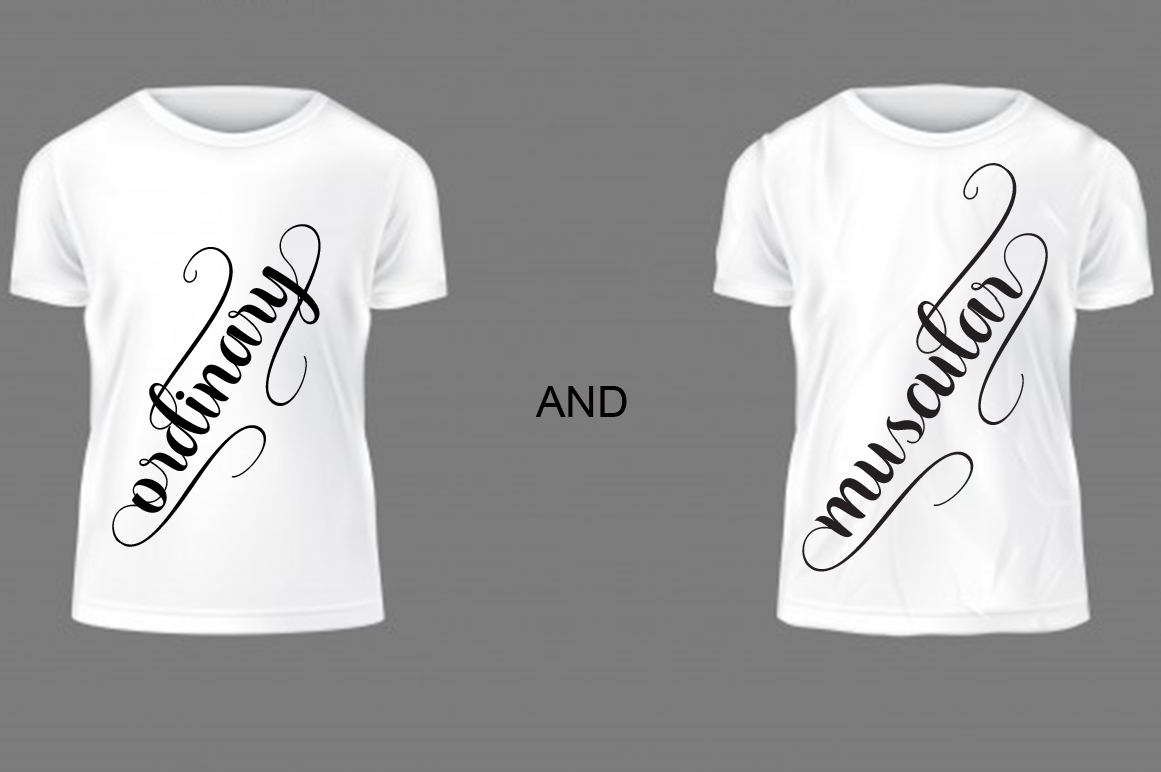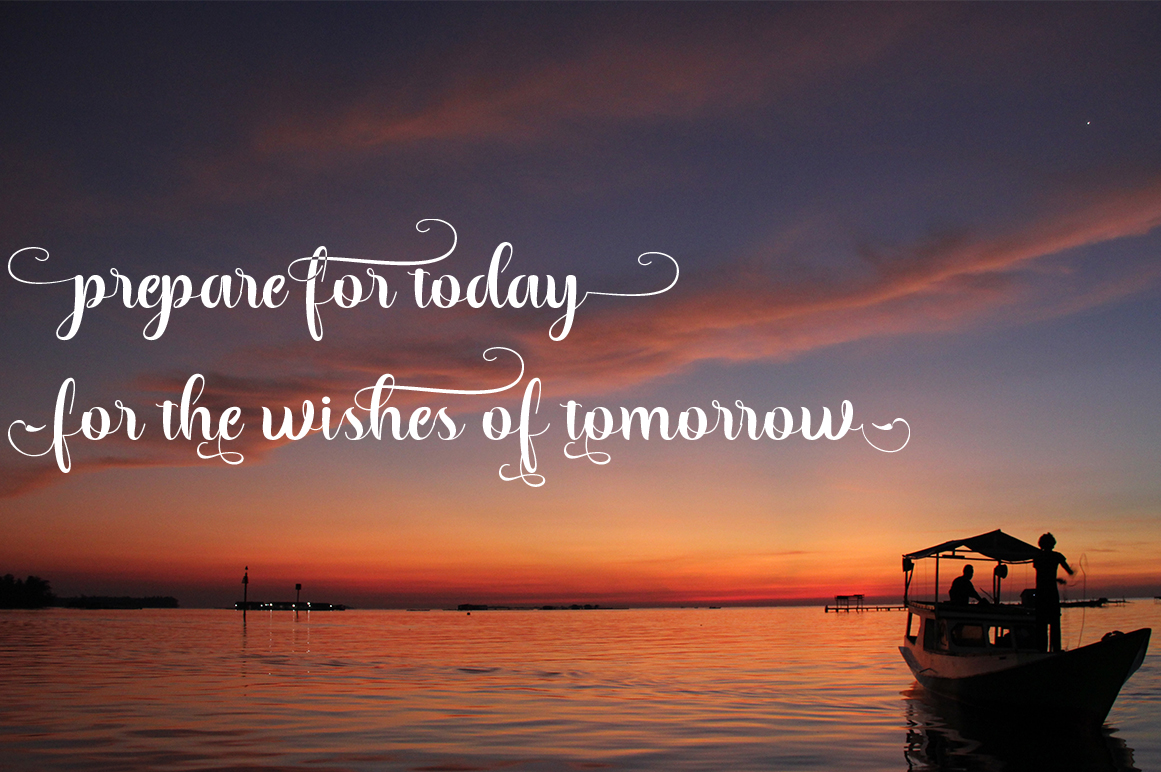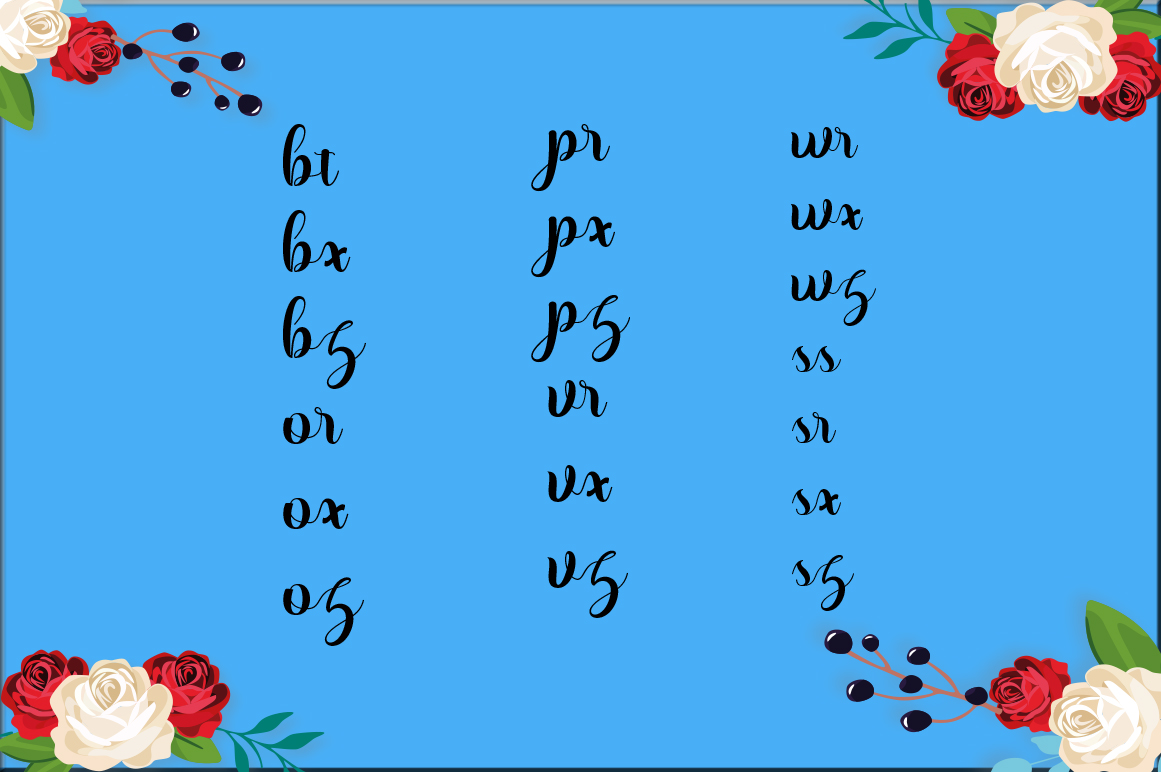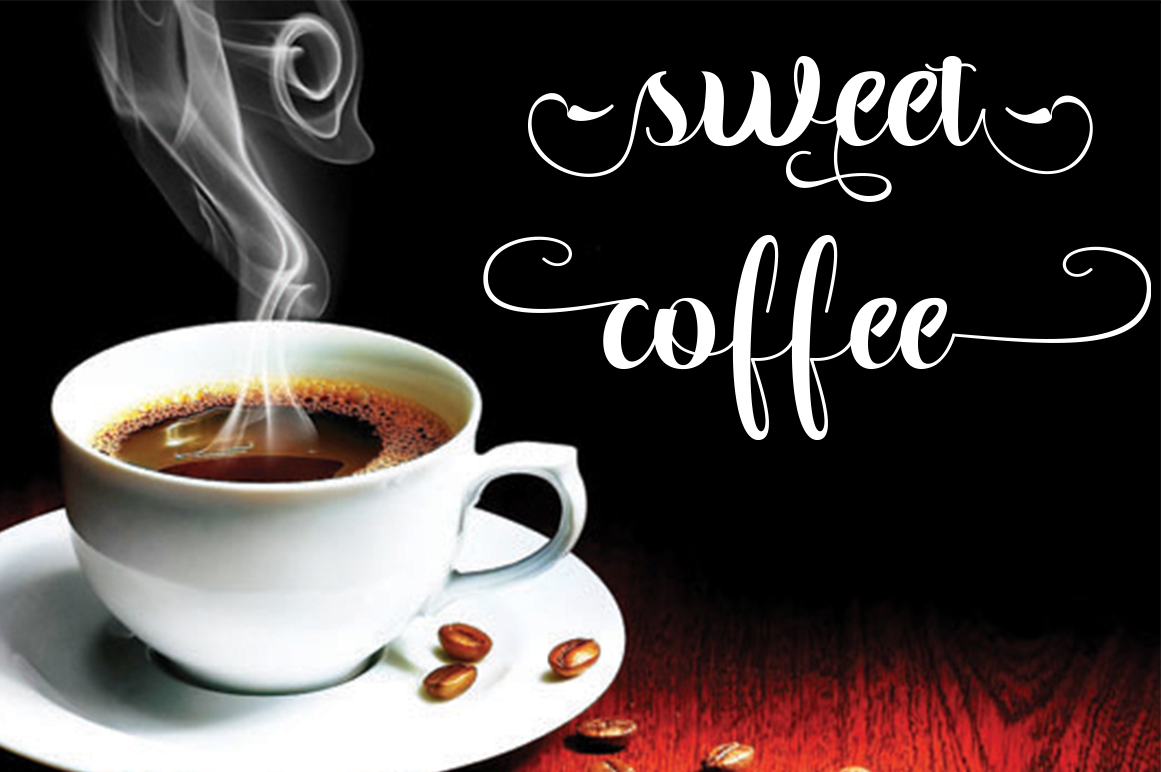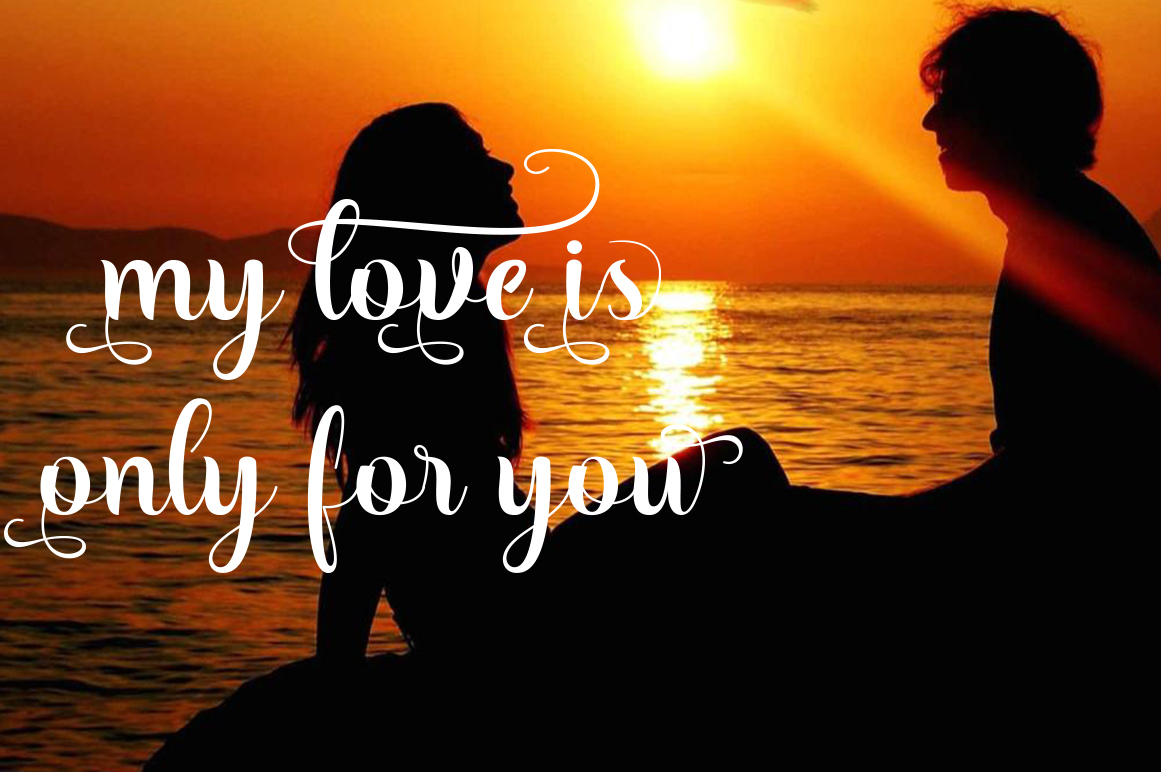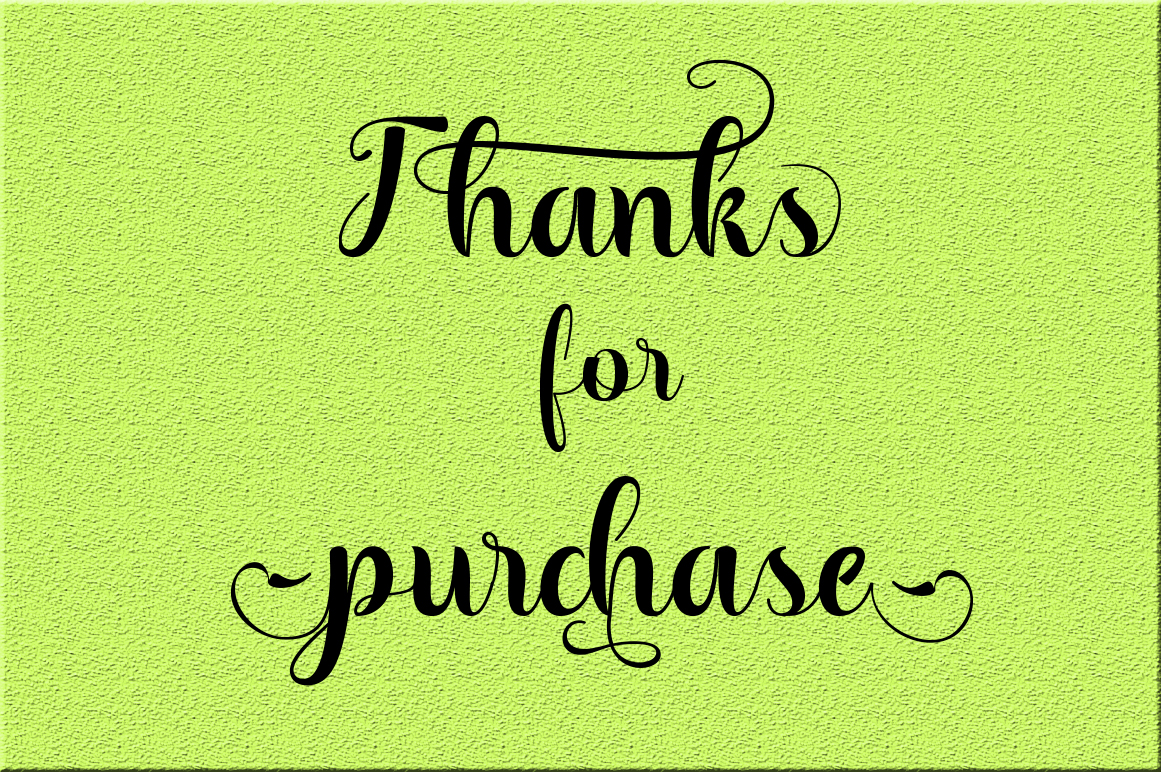
Sammalado Font
About Sammalado Font
Sammalado is a modern calligraphy style font. It’s designed by hand and digitally optimized. It features a natural handwritten style.